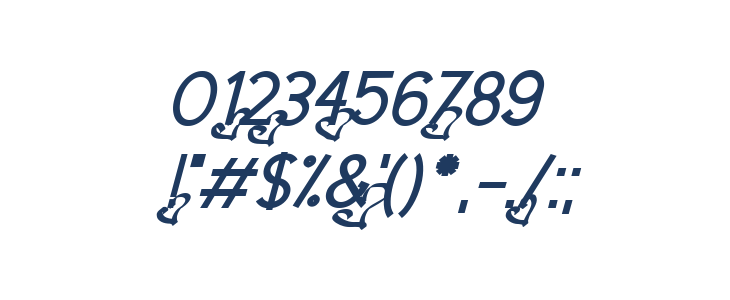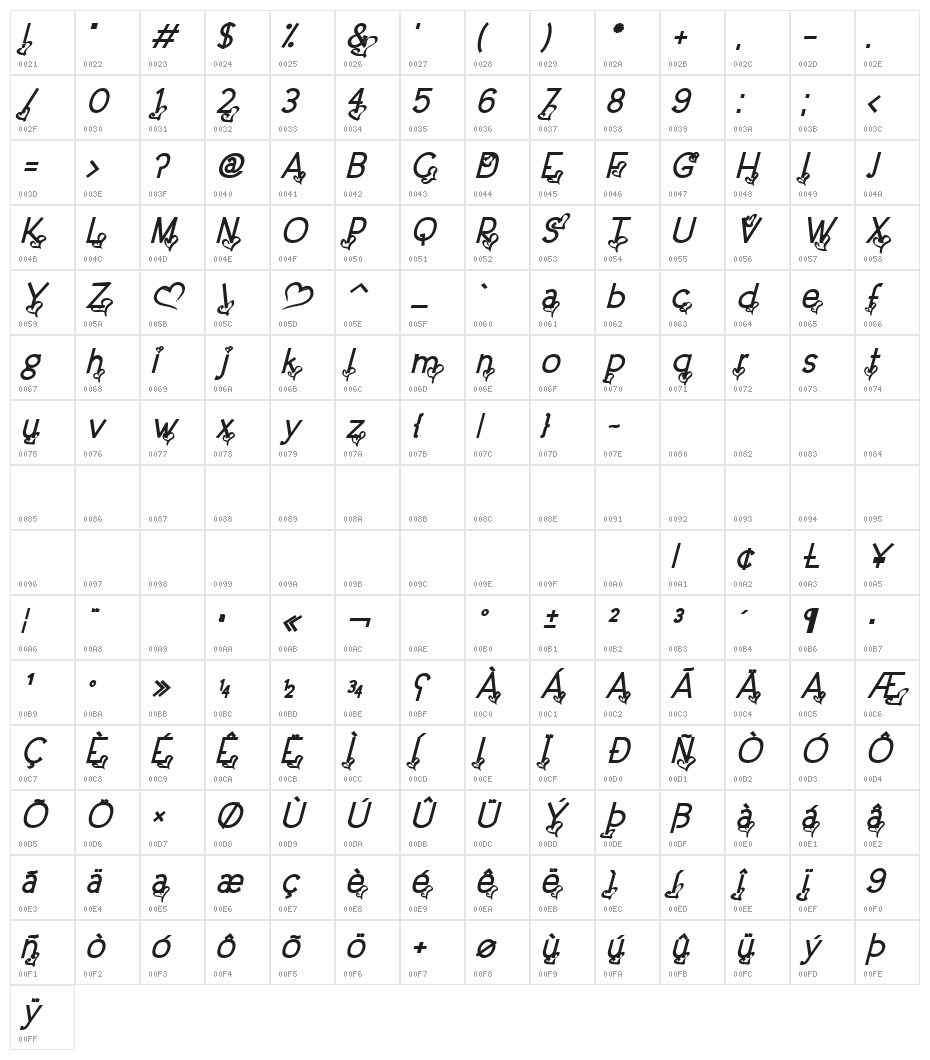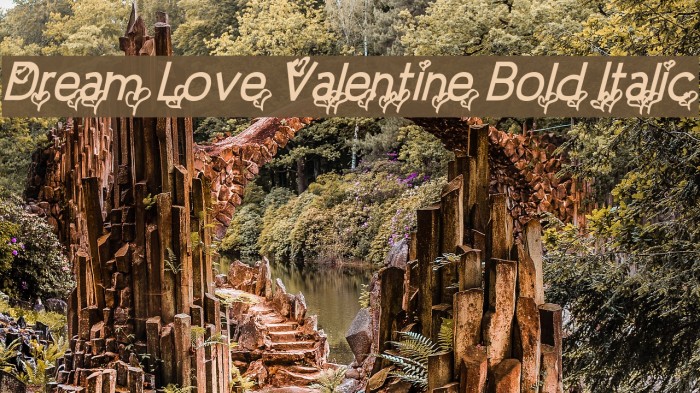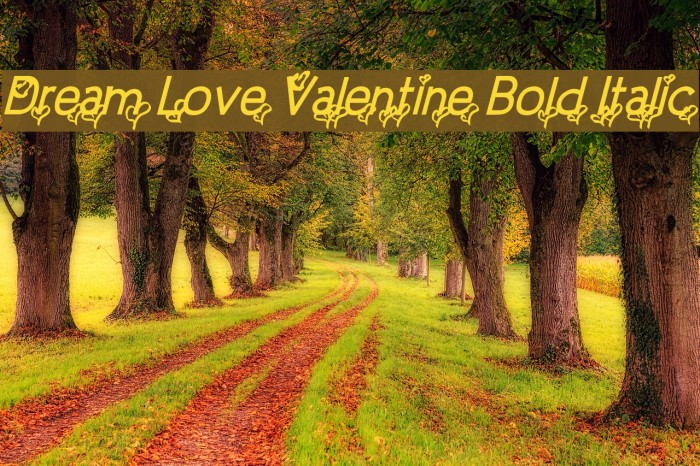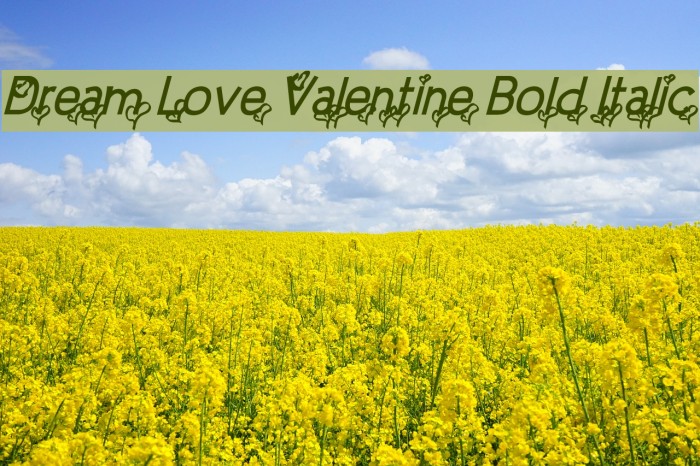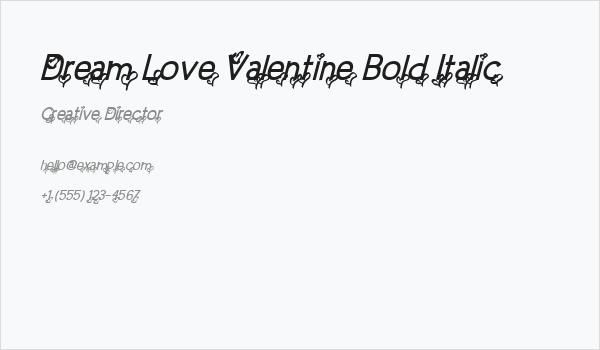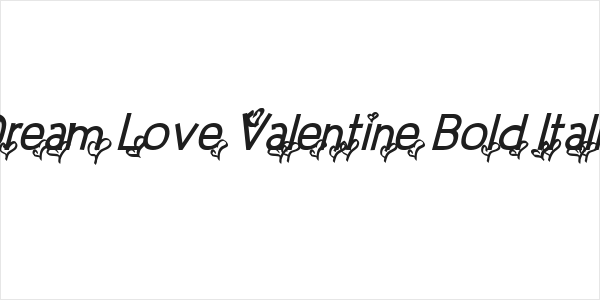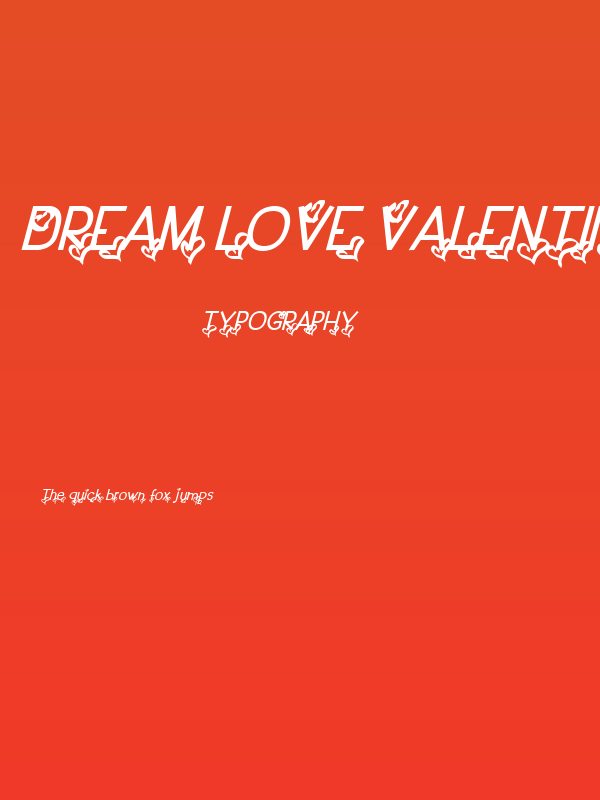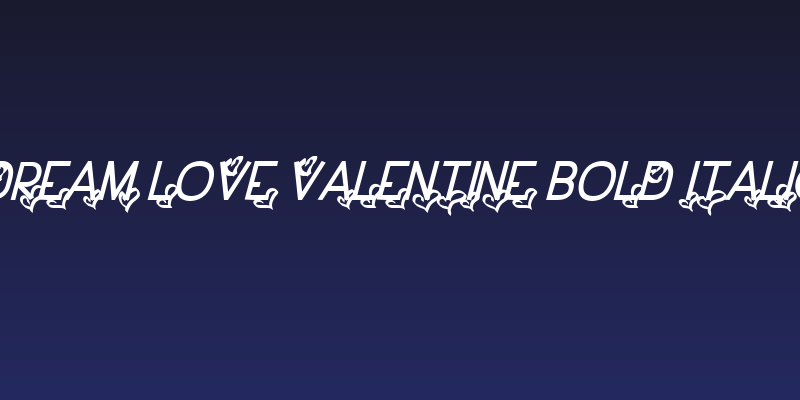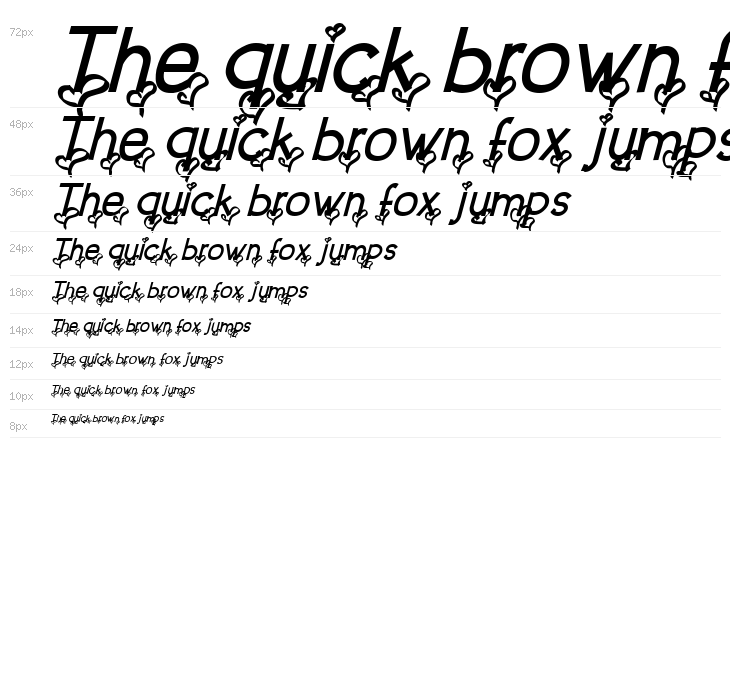
Dream Love Valentine Bold Italic Font
Dream Love Valentine Bold Italic Description
This playful and romantic font features a bold italic style with decorative heart motifs integrated into each character. The letters are slanted, adding a dynamic and whimsical feel, while the bold strokes ensure strong visibility. The heart embellishments give it a unique, charming appearance, perfect for themes of love and affection. The numerals and special characters maintain the same decorative style, ensuring consistency across all text elements. This font is ideal for projects that require a touch of romance and creativity.
| Proposed Projects | Ideal for Valentine's Day cards, wedding invitations, love-themed posters, and playful branding. |